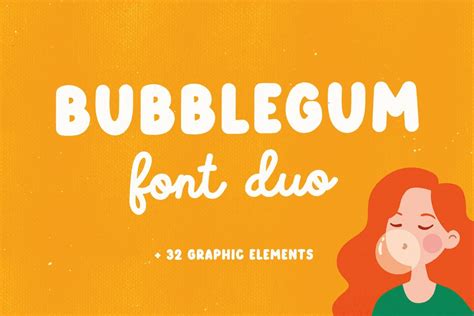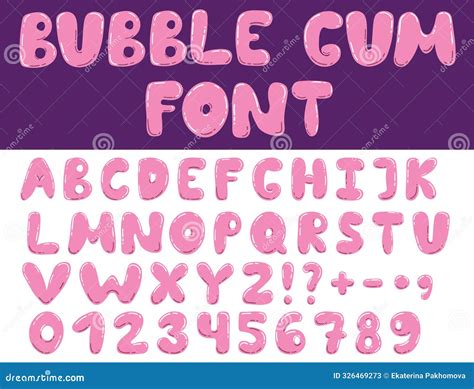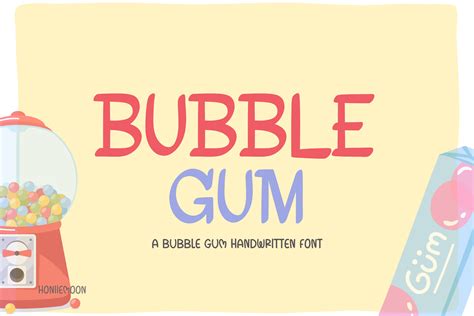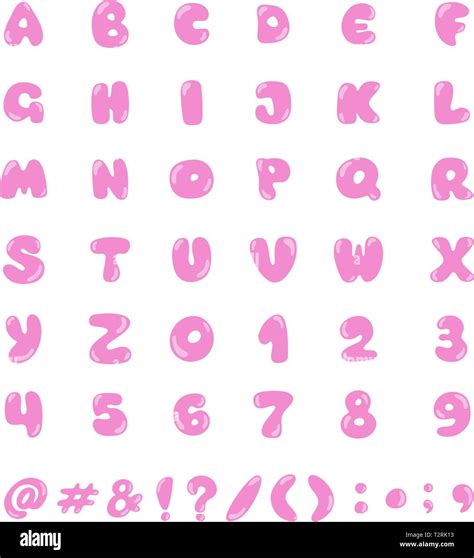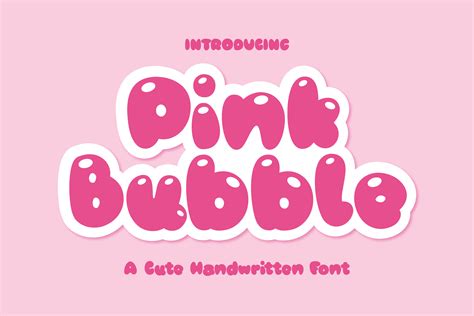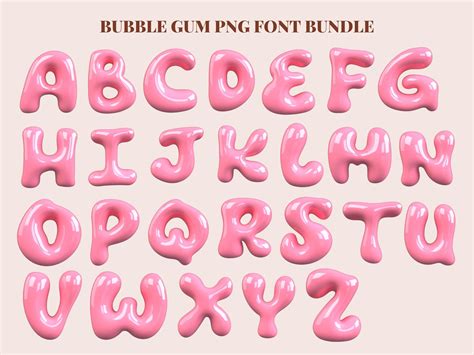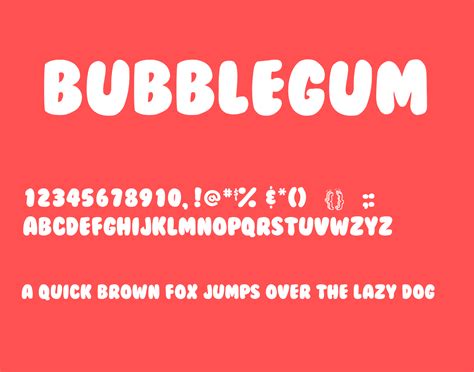
Typography plays a crucial role in graphic design, and choosing the right font can significantly impact the overall aesthetic and readability of a project. One font that has gained popularity for its playful and nostalgic appeal is the Bubble Gum Font. This font is often associated with retro and vintage designs, evoking memories of childhood and fun. In this post, we will explore the Bubble Gum Font, its characteristics, uses, and how to incorporate it into your designs effectively.
What is the Bubble Gum Font?
The Bubble Gum Font is a typeface that mimics the style of hand-drawn letters often seen on candy wrappers, comic books, and vintage advertisements. It is characterized by its rounded, bubbly shapes and playful appearance. This font is perfect for projects that aim to convey a sense of nostalgia, fun, and whimsy. Its unique design makes it stand out in a variety of creative applications, from digital graphics to print media.
Characteristics of the Bubble Gum Font
The Bubble Gum Font has several distinctive features that make it easily recognizable:
- Rounded Shapes: The letters are rounded and bubbly, giving them a soft and friendly appearance.
- Playful Style: The font exudes a sense of playfulness and fun, making it ideal for children’s projects and retro-themed designs.
- Vintage Appeal: Its design is reminiscent of vintage advertising and comic books, adding a nostalgic touch to any project.
- Versatility: Despite its playful nature, the Bubble Gum Font can be used in a variety of contexts, from casual to more formal settings, depending on the design.
Uses of the Bubble Gum Font
The Bubble Gum Font is incredibly versatile and can be used in a wide range of projects. Here are some common applications:
- Children’s Books and Illustrations: Its playful and friendly appearance makes it perfect for children’s literature and illustrations.
- Retro and Vintage Designs: The font’s nostalgic appeal is ideal for projects that aim to capture a retro or vintage aesthetic.
- Candy and Food Packaging: The Bubble Gum Font is often used on candy wrappers and food packaging to evoke a sense of fun and sweetness.
- Comic Books and Graphic Novels: Its hand-drawn style is well-suited for comic book lettering and graphic novels.
- Invitations and Greeting Cards: The font can add a playful touch to invitations, greeting cards, and other stationery items.
- Digital Graphics and Social Media: The Bubble Gum Font can be used in digital graphics, social media posts, and online content to create eye-catching visuals.
How to Incorporate the Bubble Gum Font into Your Designs
Incorporating the Bubble Gum Font into your designs can add a unique and playful touch. Here are some tips to help you get started:
- Pairing with Other Fonts: The Bubble Gum Font works well when paired with more traditional or modern fonts. For example, you can use it for headlines and pair it with a clean, sans-serif font for body text.
- Color Choices: Choose colors that complement the playful nature of the font. Bright, vibrant colors like pink, yellow, and blue can enhance its whimsical appeal.
- Size and Spacing: Pay attention to the size and spacing of the font. Since it has a bubbly and rounded shape, it may require more space between letters to ensure readability.
- Backgrounds and Textures: Use backgrounds and textures that complement the retro and vintage feel of the font. Patterns, gradients, and textured backgrounds can add depth and interest to your design.
Examples of the Bubble Gum Font in Action
To better understand how the Bubble Gum Font can be used, let’s look at some examples:
Imagine a children’s book cover featuring a bright, colorful illustration of a candy store. The title of the book, “Sweet Adventures,” is written in a large, bold Bubble Gum Font, with smaller, more traditional text for the author’s name and additional details. The background is a playful pattern of candy wrappers and lollipops, creating a cohesive and engaging design.
Another example is a retro-themed poster for a vintage candy shop. The shop’s name, “Retro Sweets,” is prominently displayed in the Bubble Gum Font, with additional text in a complementary vintage font. The poster features images of classic candy bars, soda bottles, and other nostalgic items, all set against a background of pastel colors and retro patterns.
Design Tips for Using the Bubble Gum Font
When using the Bubble Gum Font in your designs, keep the following tips in mind:
- Readability: Ensure that the font is legible, especially when used in smaller sizes. The bubbly shapes can sometimes make it difficult to read, so consider using it for headlines or short phrases rather than large blocks of text.
- Contrast: Use contrasting colors and backgrounds to make the font stand out. For example, a bright pink Bubble Gum Font on a white background will be more eye-catching than on a similarly colored background.